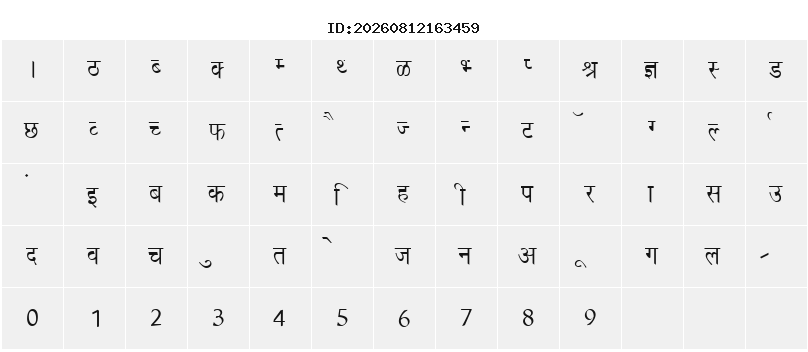
• Font Name: Richa
• Full Font Name: Richa
Richa.ttf is a modern, elegant sans-serif font designed for ultimate readability and visual harmony. Perfect for branding, headlines, web design, and print materials.